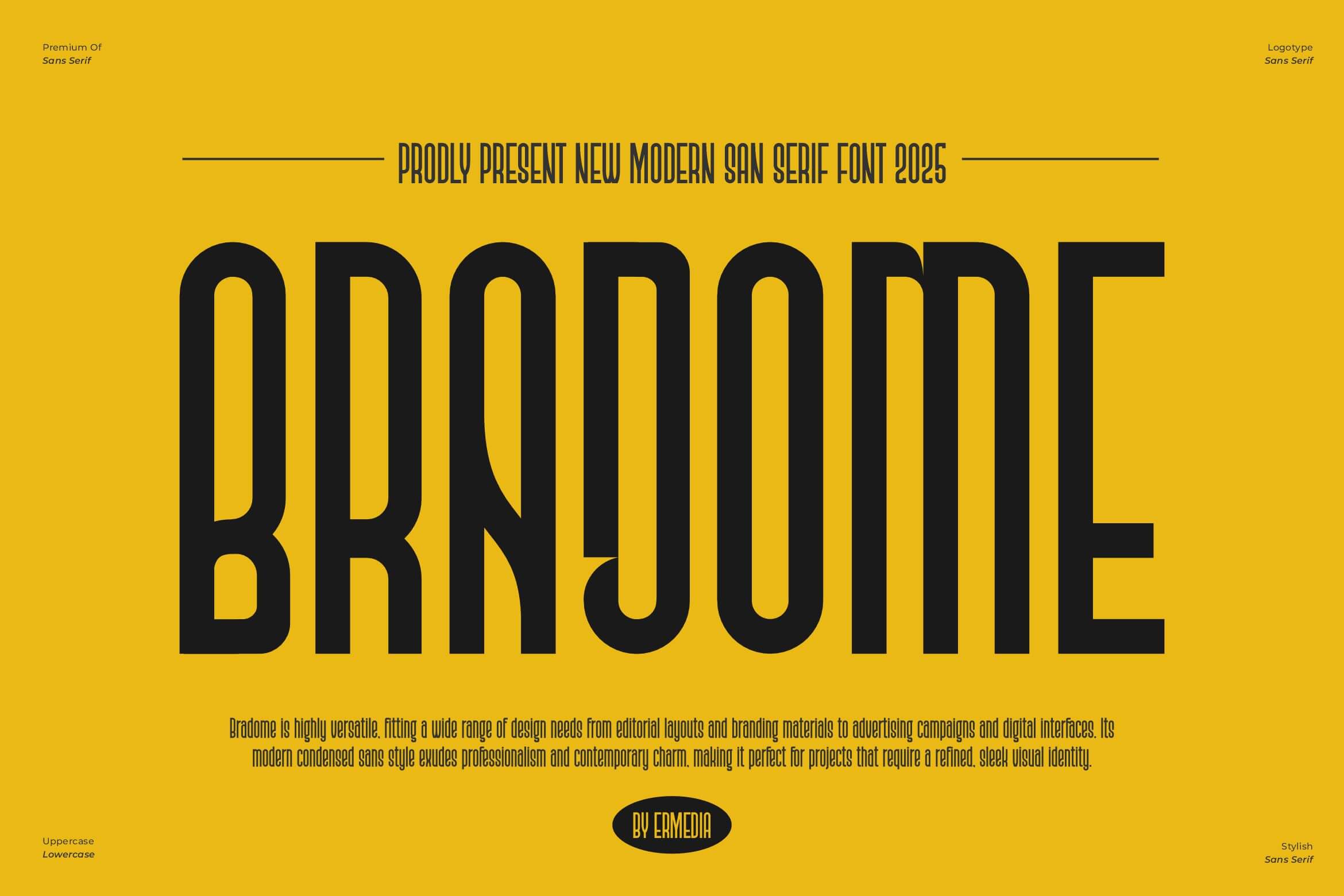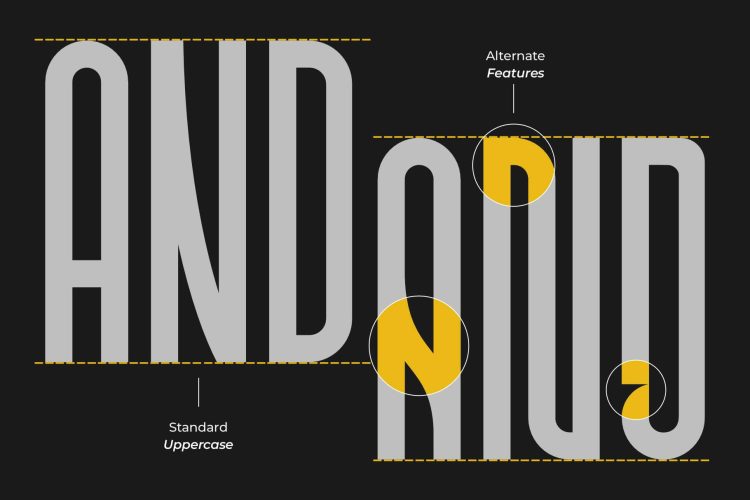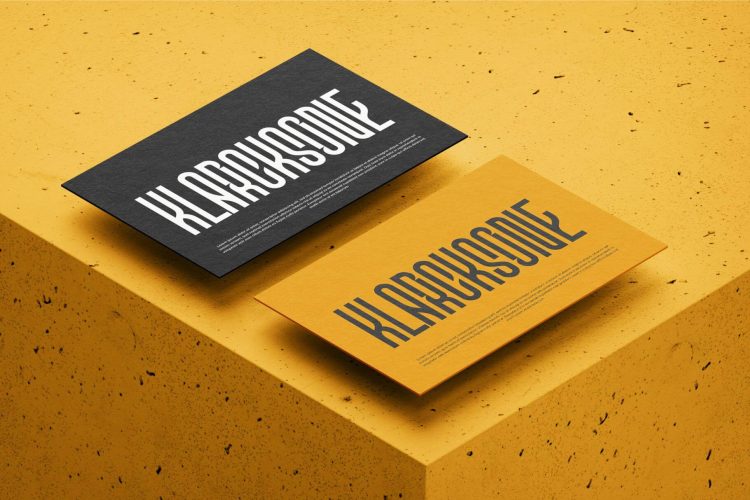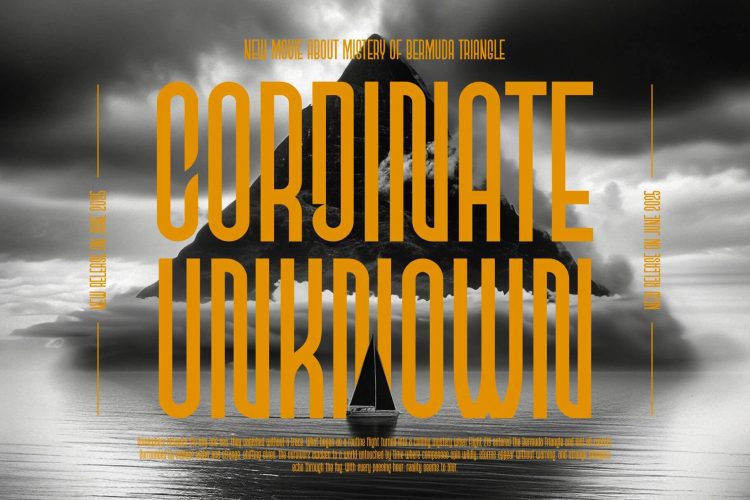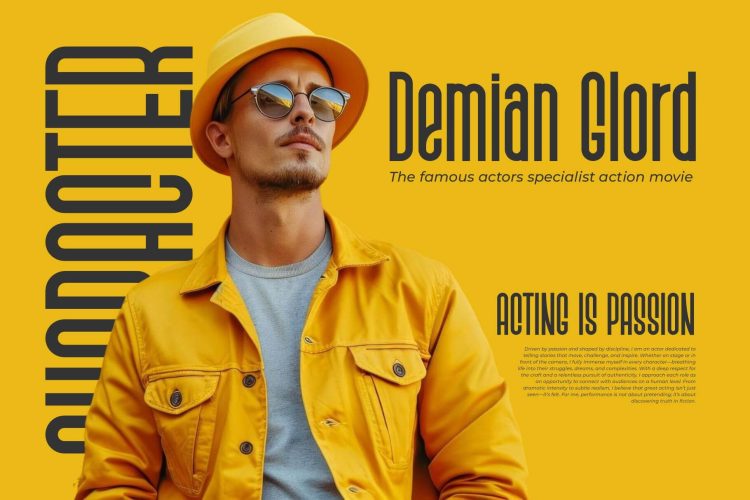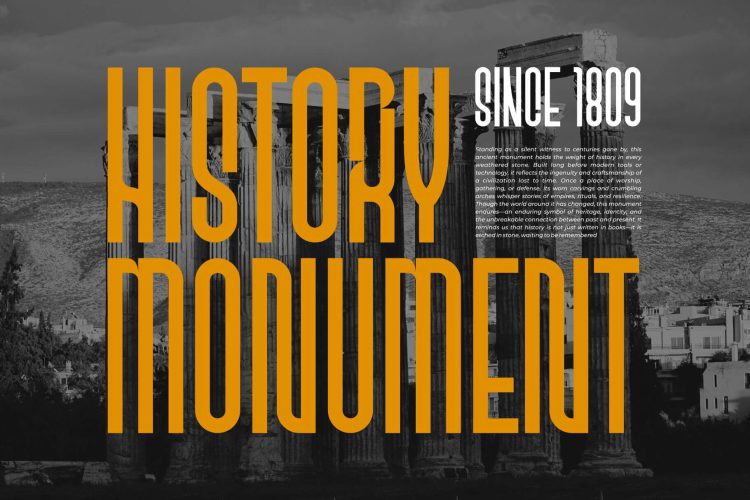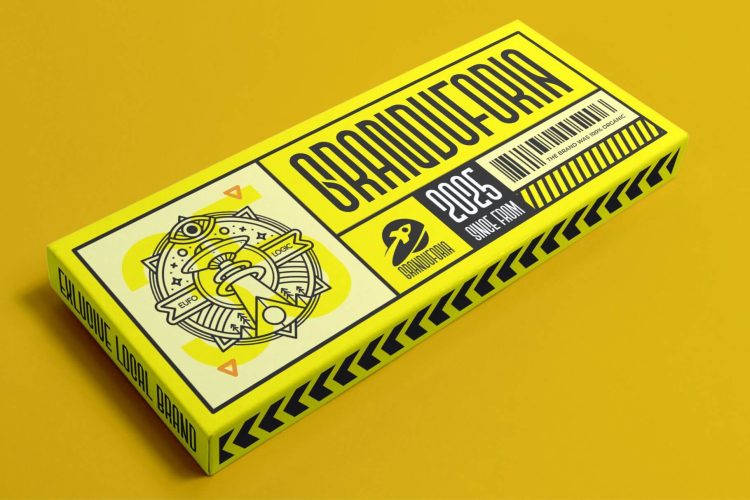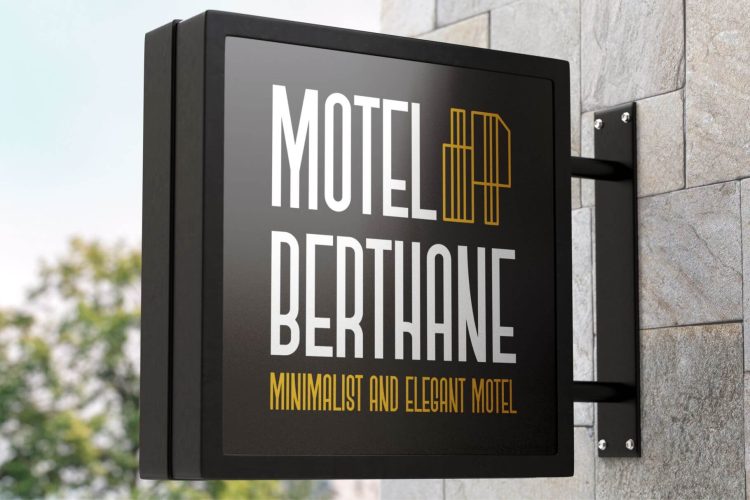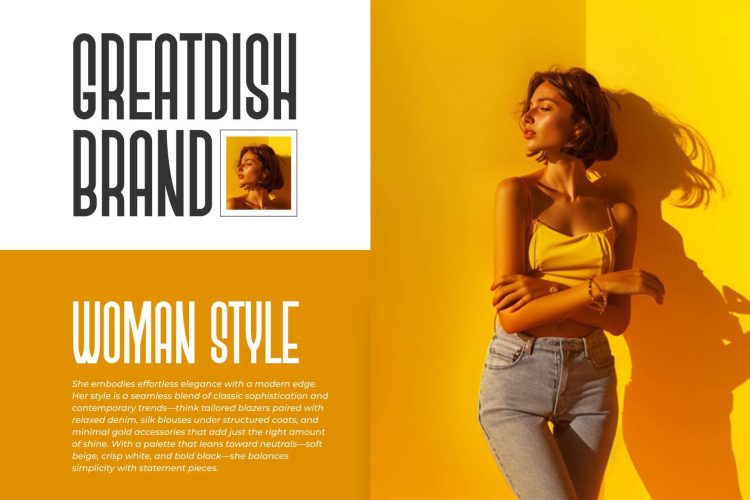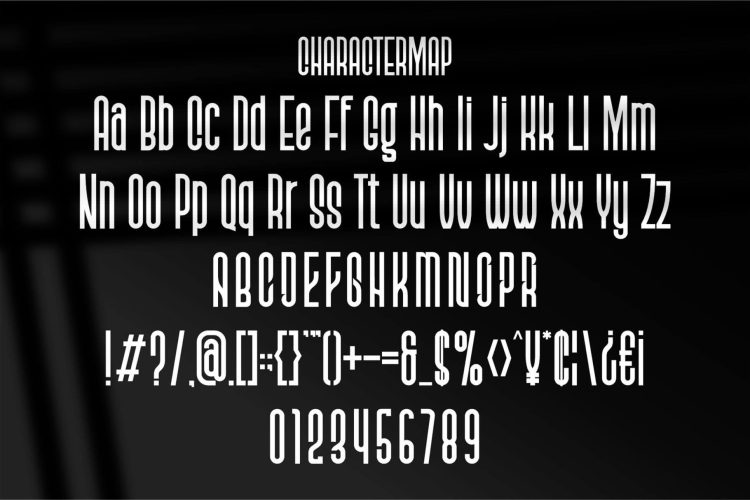
Modern Sans Serif Font
Introducing Bradome is tall sans serif Font modern, trendy and stylish. It has a unique character with wood theme. It is perfect to be combined with invitation card designs, company logos, movie titles, movie names, business cards, book titles, brand names and various other designs.
Bradome – Modern Sans Serif Font